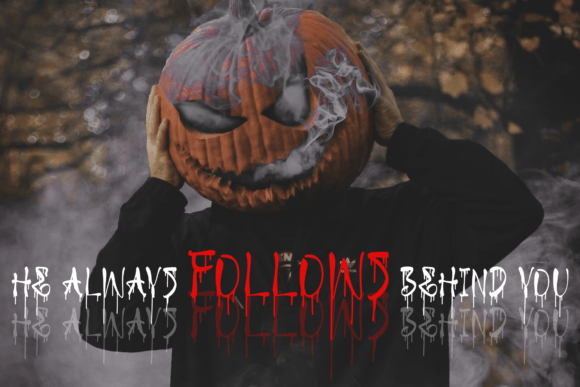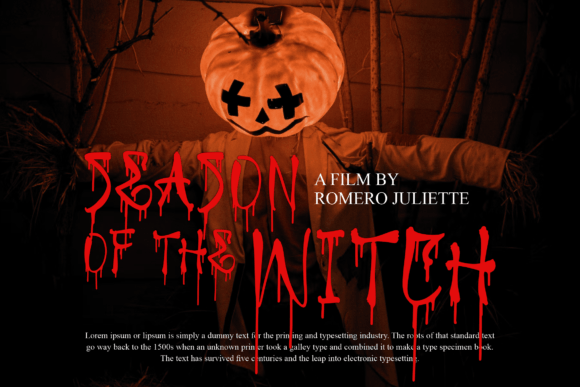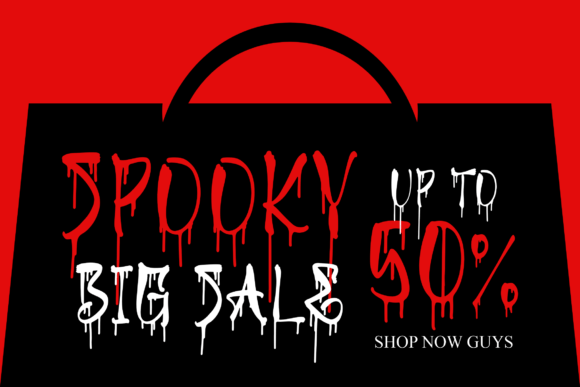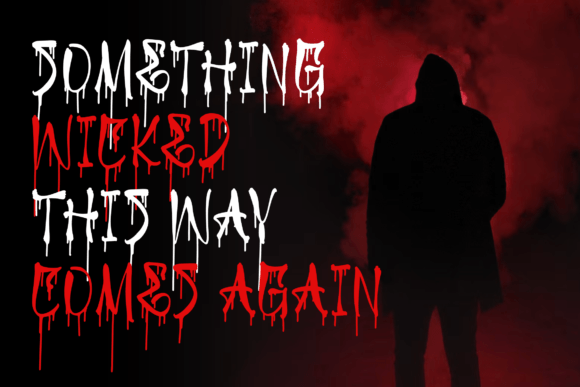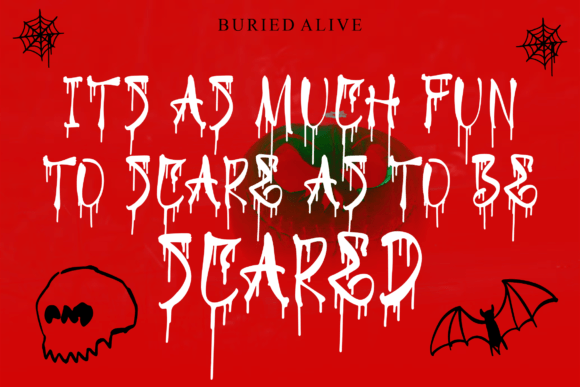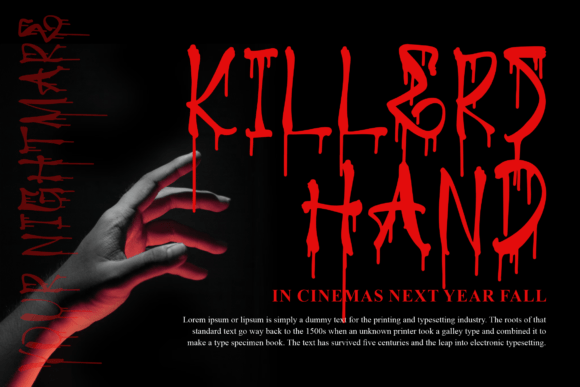
Unleash the Spooky Spirit: Introducing Halloween Freaky Font
As the witching hour approaches, designers and crafters are on the lookout for the perfect typography to add a spooky touch to their projects. Look no further than the Halloween Freaky Font, a horror decorative font that’s sure to cast a spell on your audience. In this article, we’ll dive into the creepy world of Halloween Freaky and explore its uses, features, and benefits for designers and crafters.
What is Halloween Freaky Font?
Halloween Freaky is a unique and terrifyingly awesome font, designed to add a creepy touch to any project. This horror decorative font is perfect for designers and crafters who want to create spooky and eye-catching designs for Halloween, or for those who simply love the eerie and unknown. With its distressed and worn look, Halloween Freaky Font is sure to evoke the feeling of a haunted house or a creepy abandoned asylum.
Uses of Halloween Freaky Font
Halloween Freaky Font is a versatile font that can be used for a wide range of projects, including:
- Logos and branding projects: Add a spooky touch to your brand identity with Halloween Freaky Font.
- Homeware designs: Create creepy and eye-catching designs for home decor products, such as mugs, pillows, and posters.
- Product packaging: Stand out from the crowd with Halloween Freaky Font on your product packaging.
- Mugs, quotes, posters, and shopping bags: Add a touch of horror to your designs with Halloween Freaky Font.
- T-shirts, book covers, name cards, invitation cards, and greeting cards: Create unique and eye-catching designs for special occasions.
- Labels, photography, and watermark: Add a creepy touch to your photography and designs with Halloween Freaky Font.
- Special events: Use Halloween Freaky Font to create spooky and memorable designs for Halloween parties and events.
Features of Halloween Freaky Font
Halloween Freaky Font has several features that make it a must-have for designers and crafters:
- Creepy and distressed look: Halloween Freaky Font has a worn and distressed look that adds to its creepy charm.
- Unique and terrifyingly awesome: This font is sure to stand out from the crowd and add a touch of horror to your designs.
- High-quality: Halloween Freaky Font is a high-quality font that’s perfect for commercial and personal use.
Benefits of Using Halloween Freaky Font
Using Halloween Freaky Font has several benefits for designers and crafters:
- Adds a spooky touch: Halloween Freaky Font adds a creepy and eye-catching touch to any design.
- Versatile: This font can be used for a wide range of projects, from logos and branding to homeware designs and product packaging.
- Unique: Halloween Freaky Font is a unique and terrifyingly awesome font that’s sure to stand out from the crowd.
- High-quality: This font is a high-quality font that’s perfect for commercial and personal use.
Tips for Using Halloween Freaky Font
Here are some tips for using Halloween Freaky Font:
- Use it sparingly: Use Halloween Freaky Font sparingly to add a touch of horror to your designs.
- Experiment with different colors: Experiment with different colors to add to the creepy effect of Halloween Freaky Font.
- Pair it with other fonts: Pair Halloween Freaky Font with other fonts to create a unique and eye-catching design.
- Use it for special occasions: Use Halloween Freaky Font for special occasions, such as Halloween parties and events.
In conclusion, Halloween Freaky Font is a must-have for designers and crafters who want to add a spooky touch to their projects. With its creepy and distressed look, unique and terrifyingly awesome design, and high-quality features, Halloween Freaky Font is perfect for a wide range of projects. Whether you’re designing logos and branding projects, homeware designs, or product packaging, Halloween Freaky Font is sure to cast a spell on your audience.